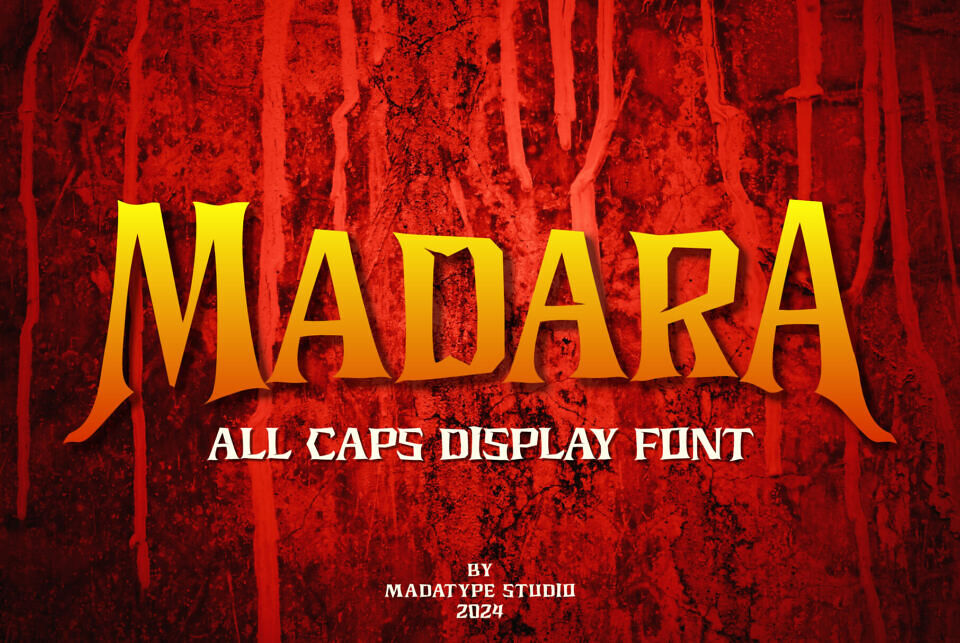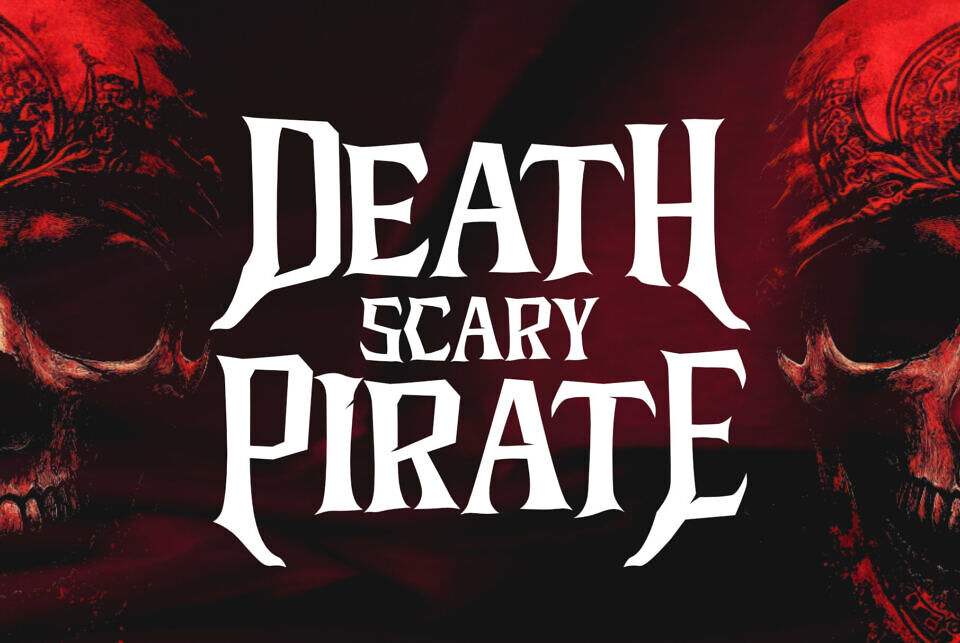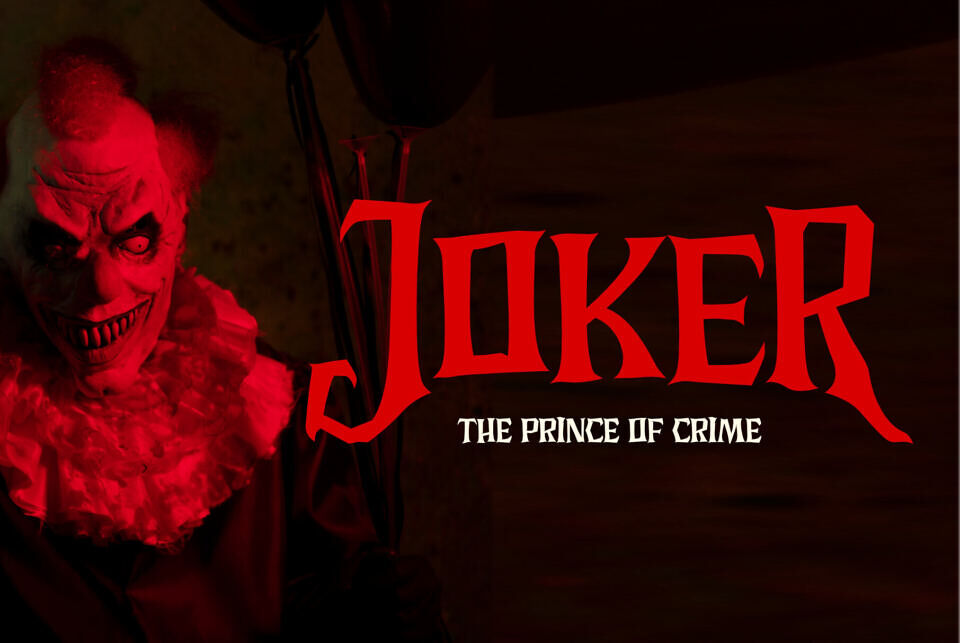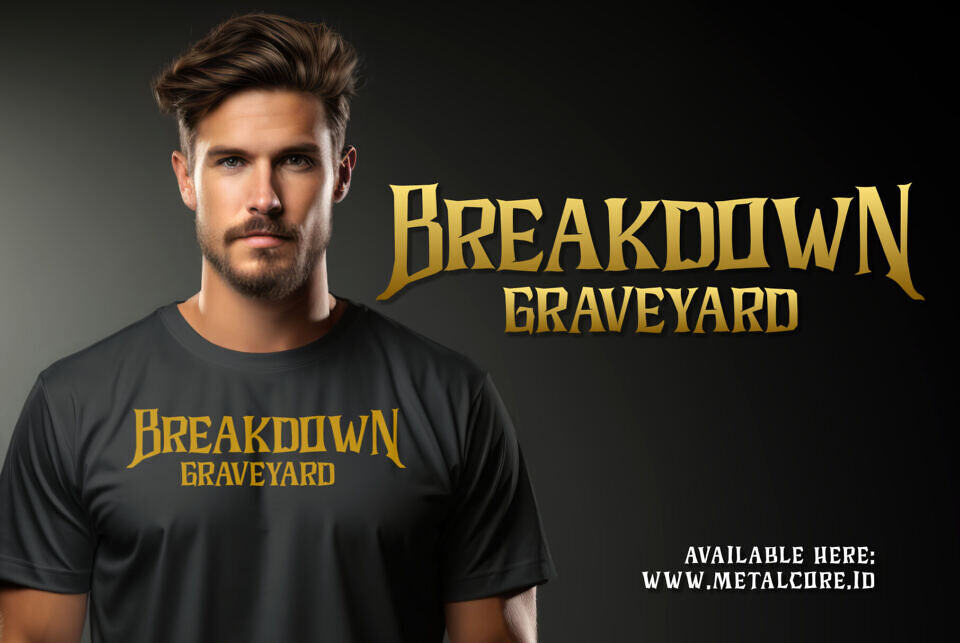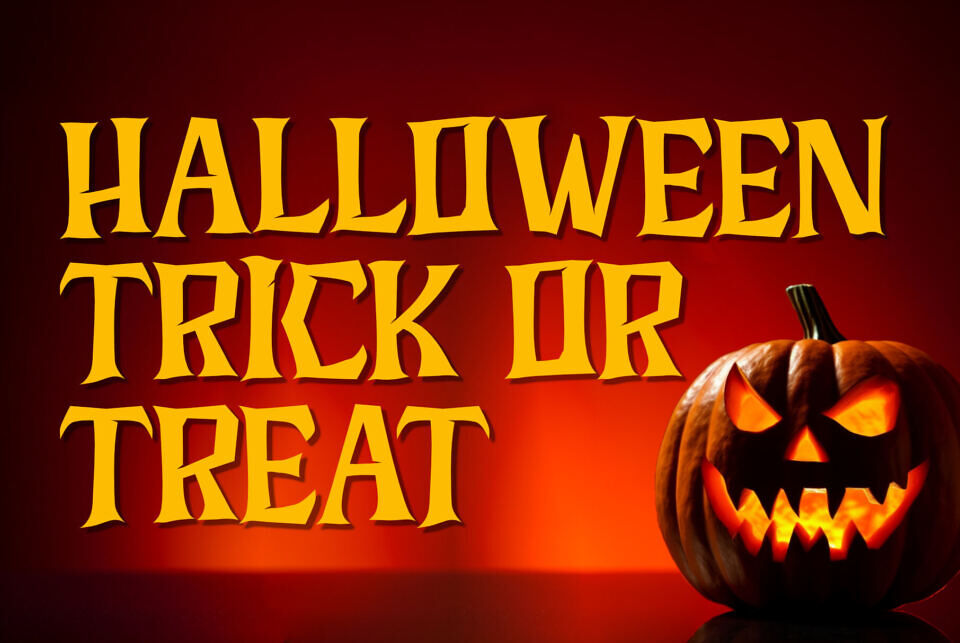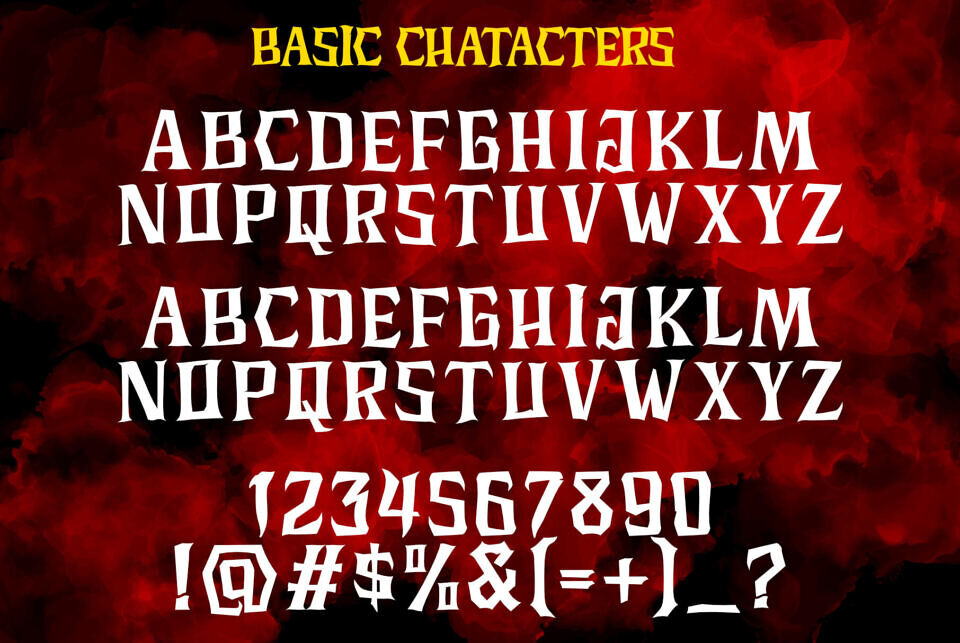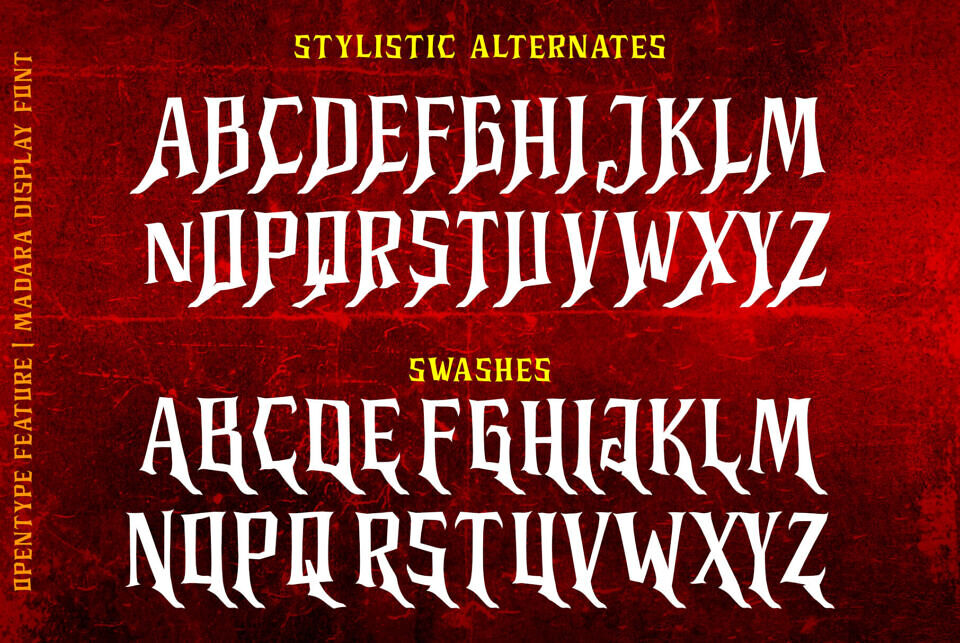
Madara Font
Madara is a bold, all-caps display font designed to bring intensity and darkness to your creative projects. With sharp edges, dramatic strokes, and a raw, rugged aesthetic, this font is perfect for spooky themes, horror designs, and death metal branding. It captures a sense of chaos and mystery, making it ideal for projects that demand a fierce, commanding presence.
Featuring a range of alternates, Madara provides flexibility and customization options to help designers craft unique and impactful typography. Whether you’re working on eerie posters, album covers, merchandise, or branding, Madara delivers a striking visual impact that complements gothic and heavy themes.